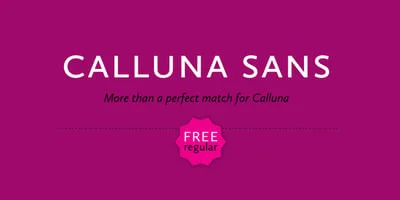
Calluna Sans Font
The Calluna Sans Font is perfect for professional applications including corporate websites, business presentations, annual reports, magazine layouts, book typography, branding materials, user interface design, mobile applications, and editorial content. This versatile sans-serif typeface delivers exceptional readability and modern elegance for both digital and print media projects.
What makes Calluna Sans Font so exciting is its perfect balance between contemporary design and classical proportions. The font features humanist characteristics with subtle warmth that makes it highly readable across all media formats. Its clean, sophisticated appearance combined with excellent legibility at various sizes makes it an ideal choice for both body text and display applications.
The Calluna Sans Font family includes multiple weights from thin to black, complete with matching italics for each weight. The family also features small caps, various numeral styles, extensive language support, and professional OpenType features including ligatures and contextual alternates that enhance typography quality.
Whether you're working on corporate identity, editorial design, or web development projects, Calluna Sans Font offers the perfect solution for designers seeking a reliable, elegant, and highly functional typeface. This font transforms standard text into polished, professional designs that communicate credibility and sophistication to your audience.